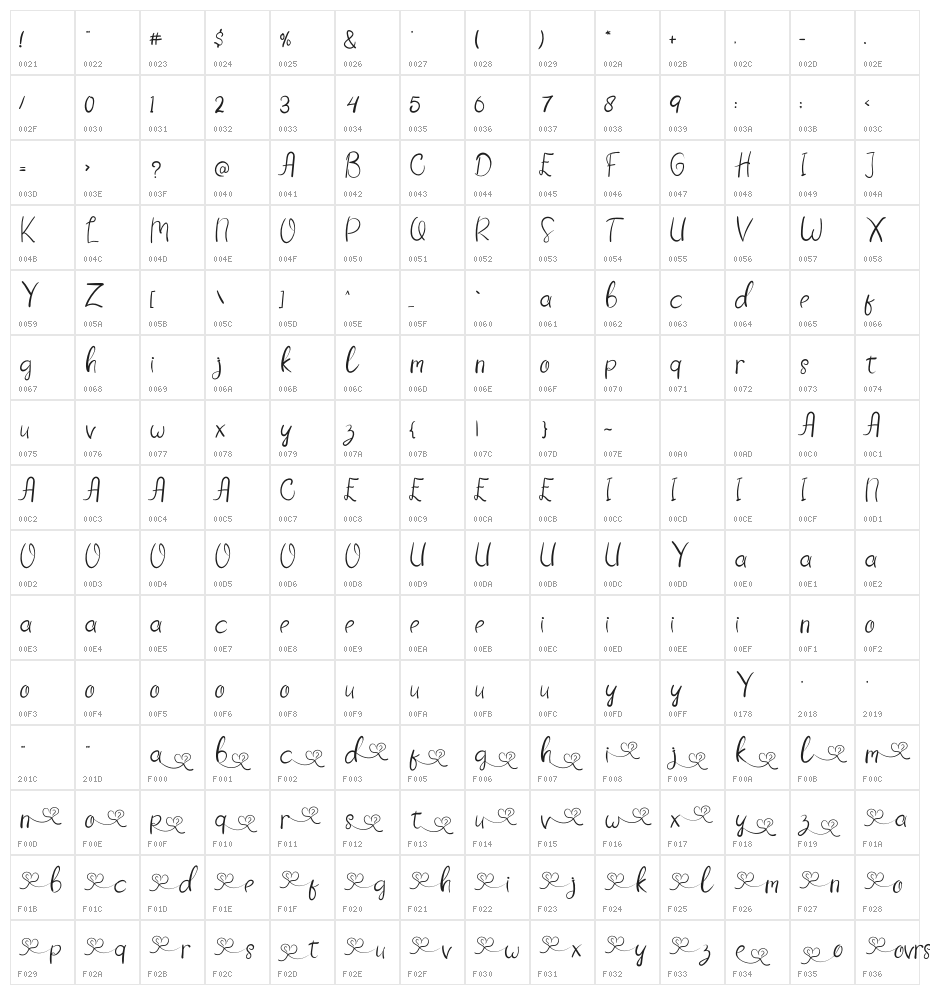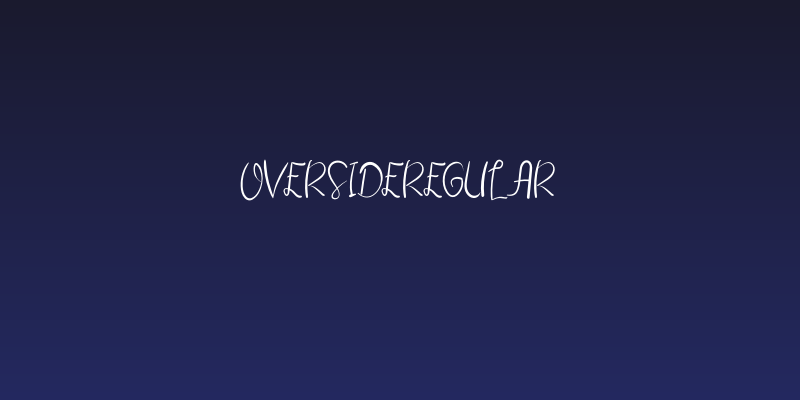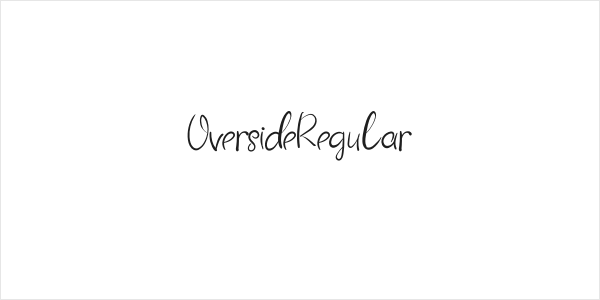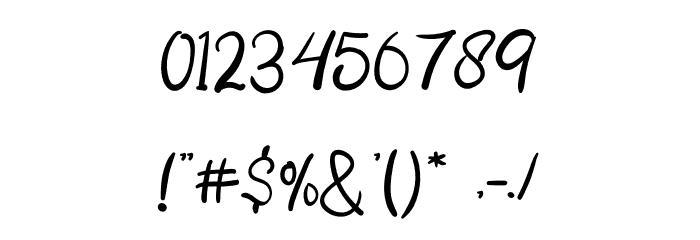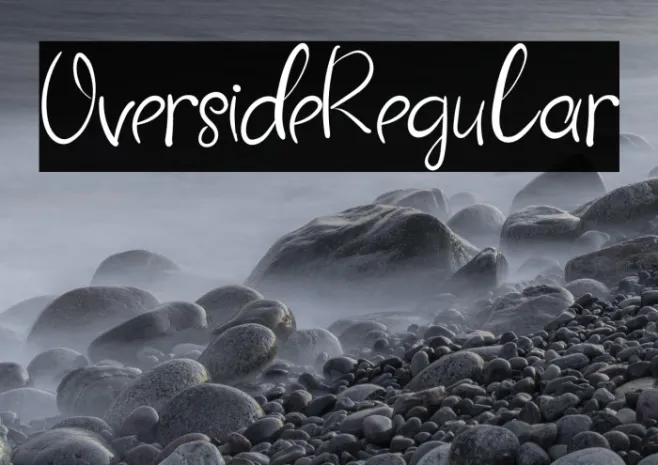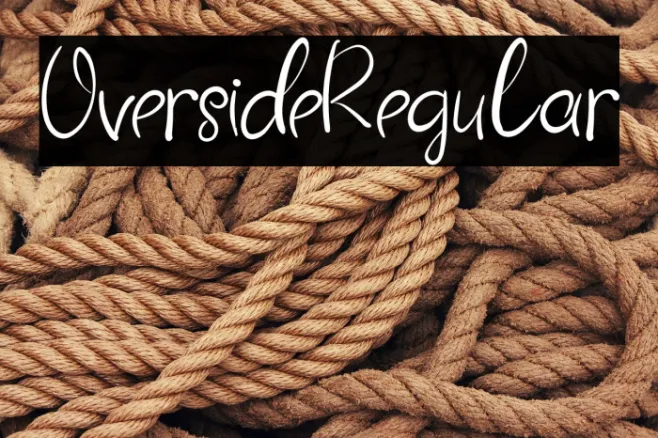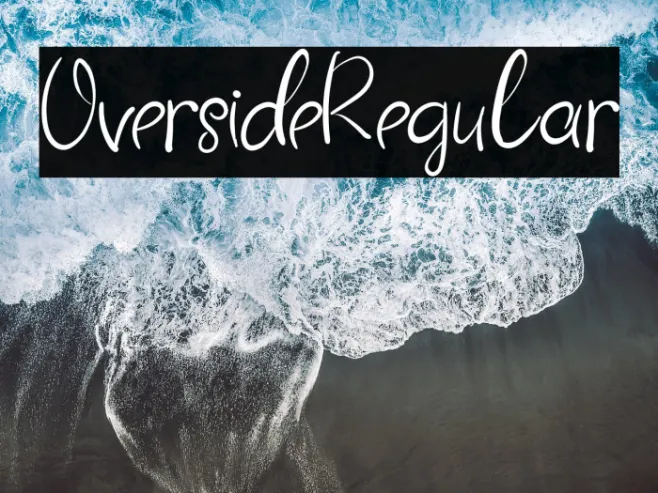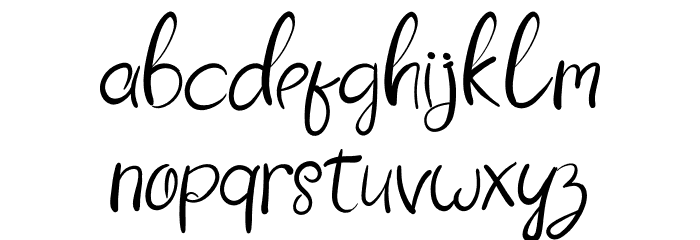
OversideRegular Font
OversideRegular Description
This font features a playful and whimsical style, characterized by its flowing, handwritten appearance. The letters have a casual, yet elegant feel, with a slight slant that adds to its dynamic nature. The uppercase letters are tall and slender, while the lowercase letters are more rounded and compact, creating a nice balance. The numerals and special characters maintain the same playful aesthetic, making the font versatile for various creative projects. Its unique style is perfect for adding a personal touch to any design.
| Proposed Projects | Ideal for greeting cards, invitations, personal branding, and creative posters. |